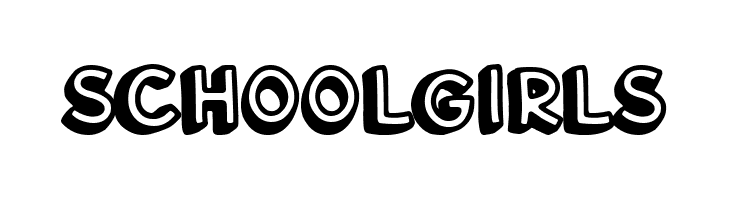
A monospaced italic font with a classic, readable design.
A geometric, folded ribbon-style font with a modern, artistic flair.
A bold, playful font with a cartoonish, hand-drawn style.
A pixelated, monospaced font with a retro digital aesthetic.
A bold, rounded font with a playful, retro style.
A Halloween-themed decorative font with playful and spooky elements.